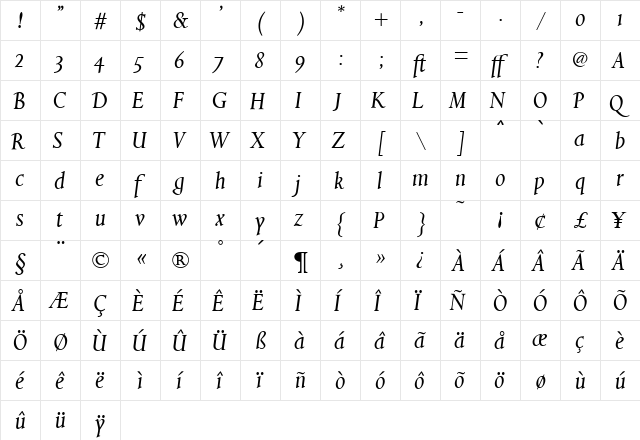
Aries Italic
Design Context for Aries Typeface
Aries offers clean, dependable letterforms without strong stylistic allegiance, making it a practical choice for designers who need flexibility. The slanted form adds forward momentum and visual energy.
Pro Tip: Try Aries for annotation and caption copy alongside an upright companion — the contrast in angle creates a dynamic but ordered typographic system.